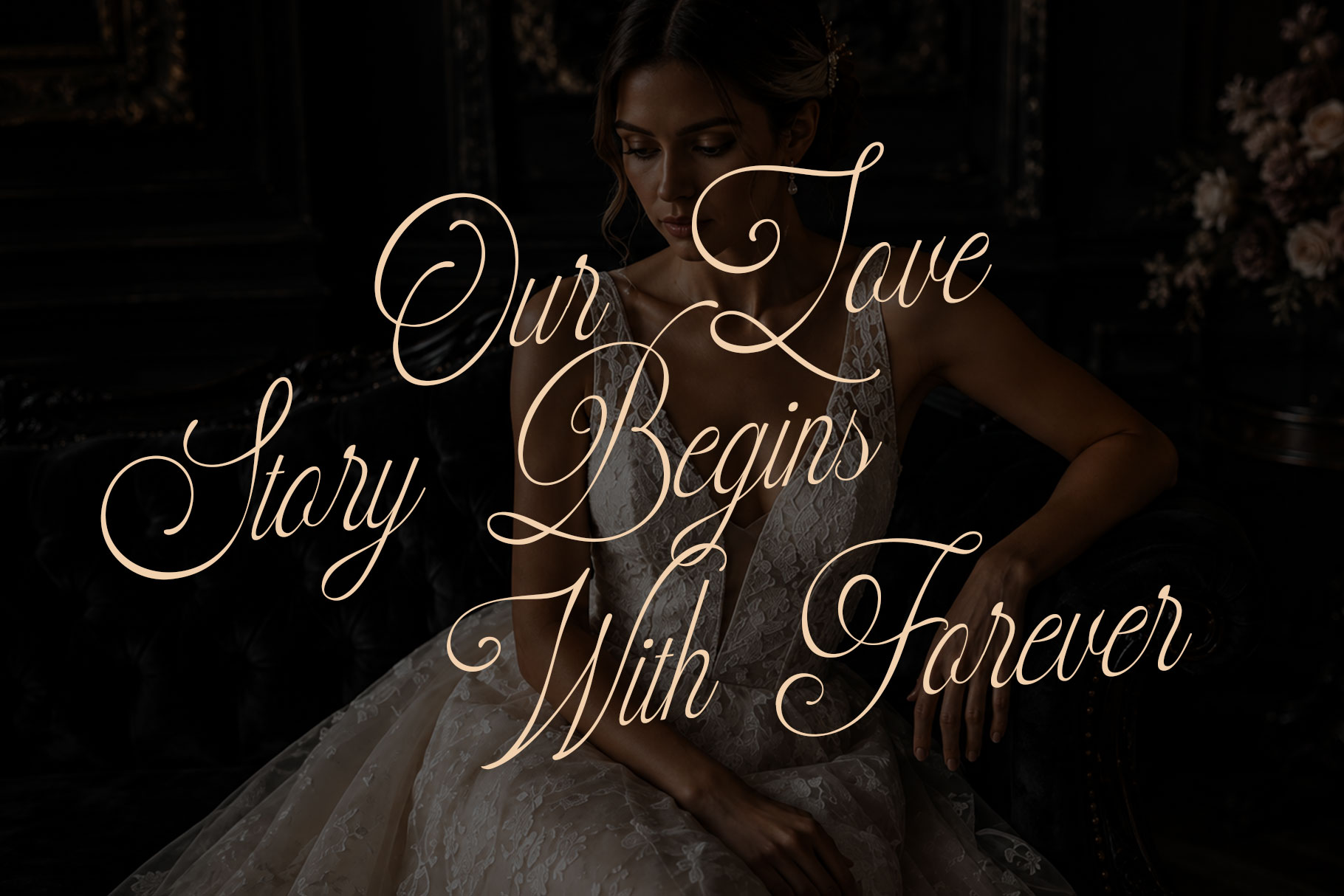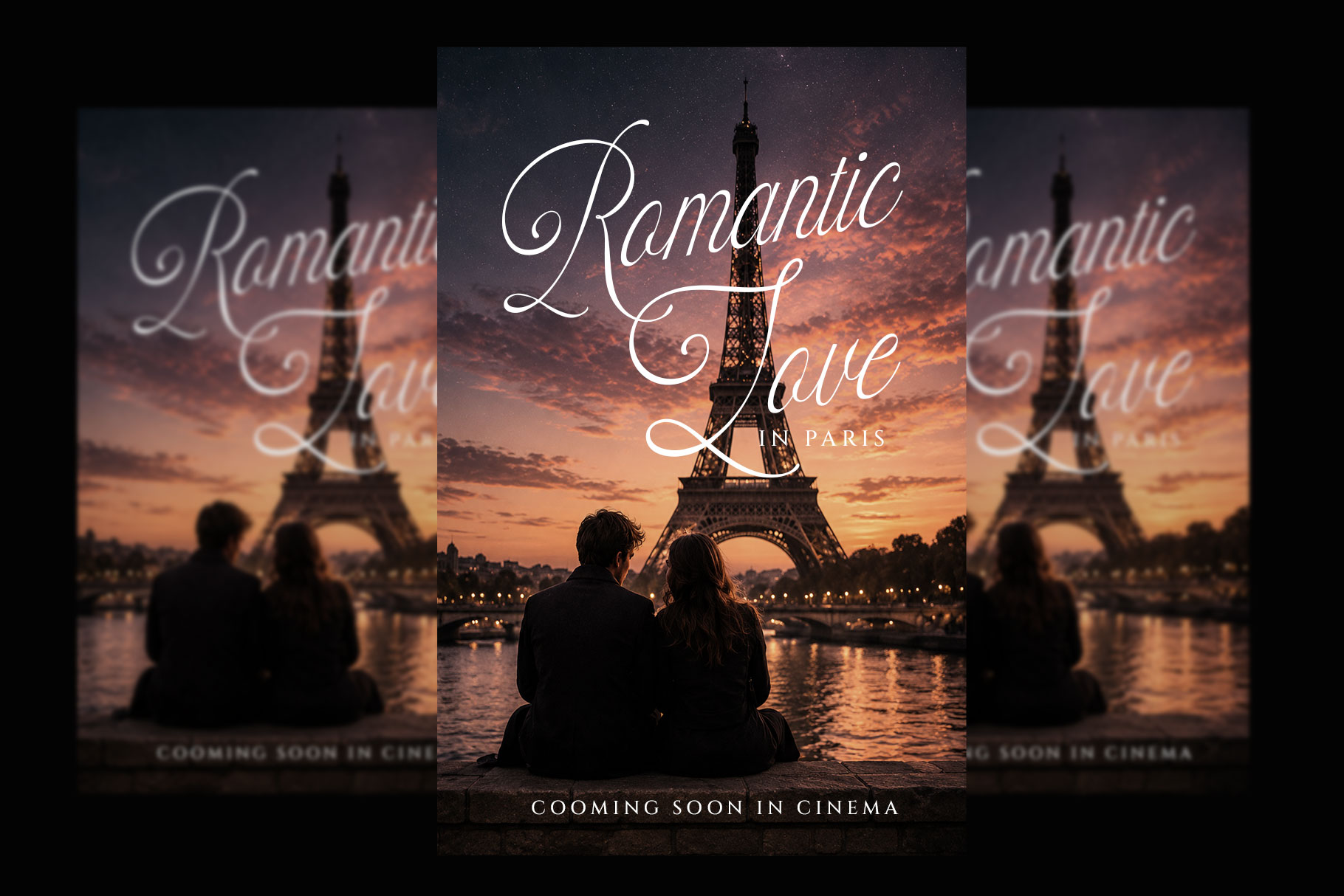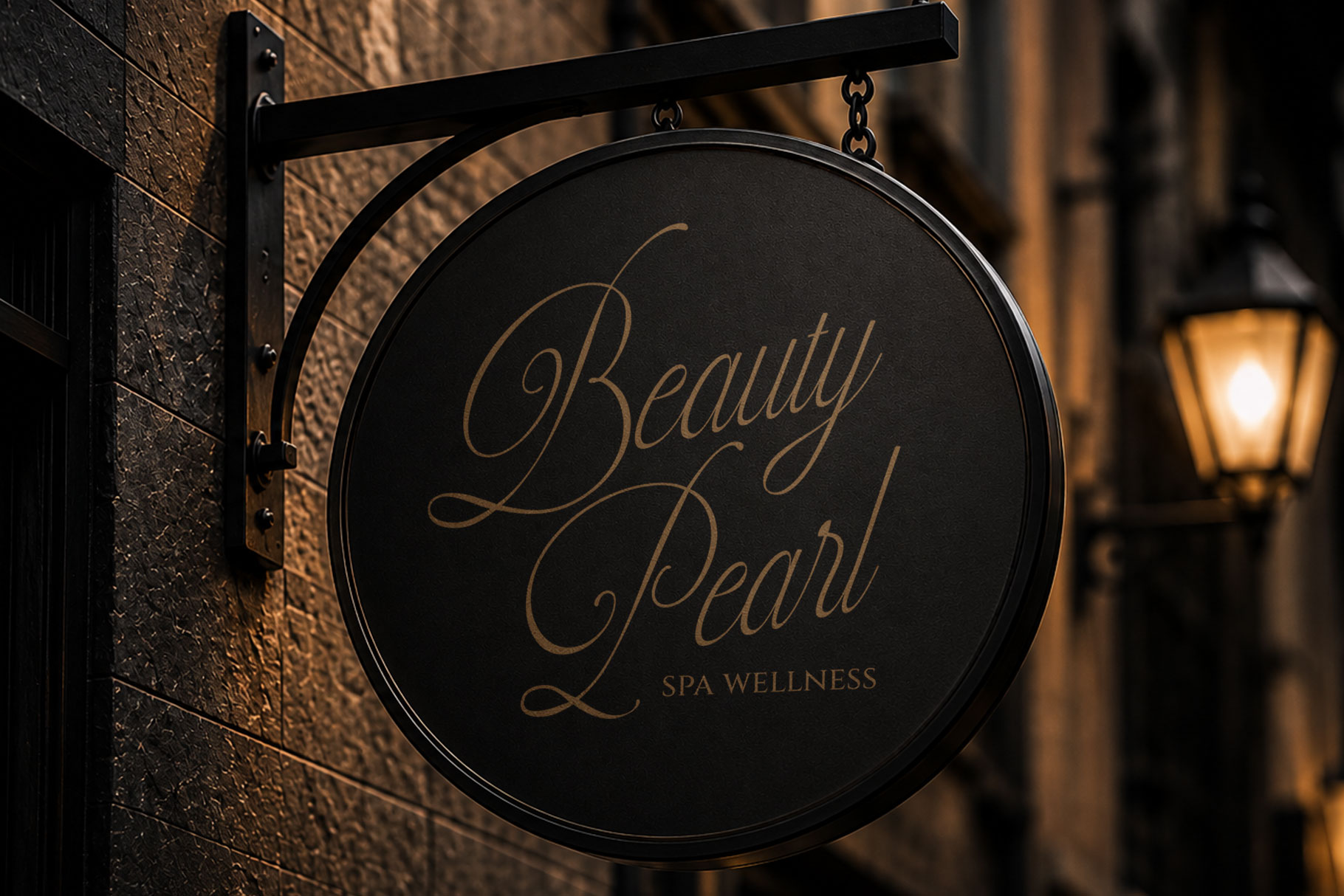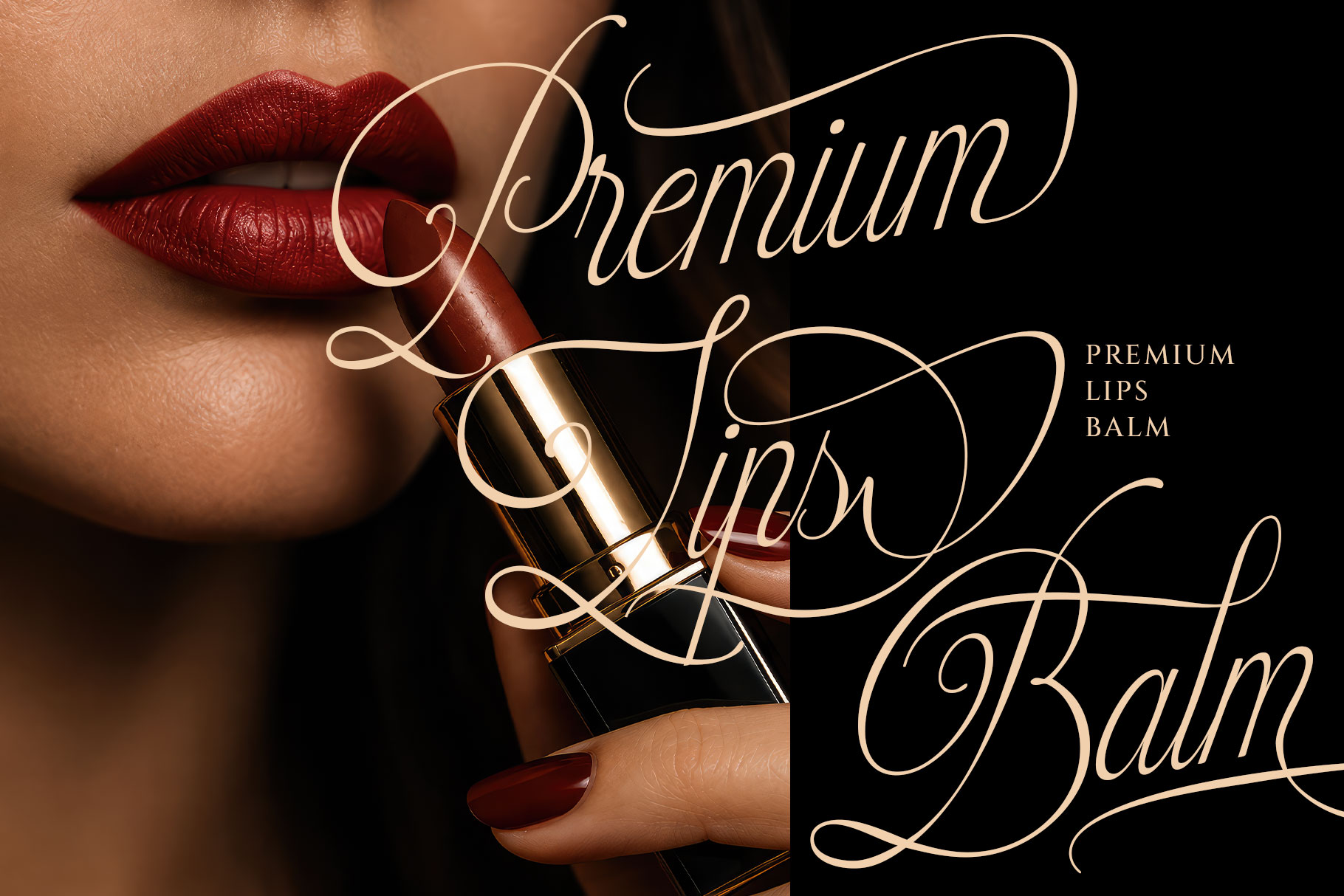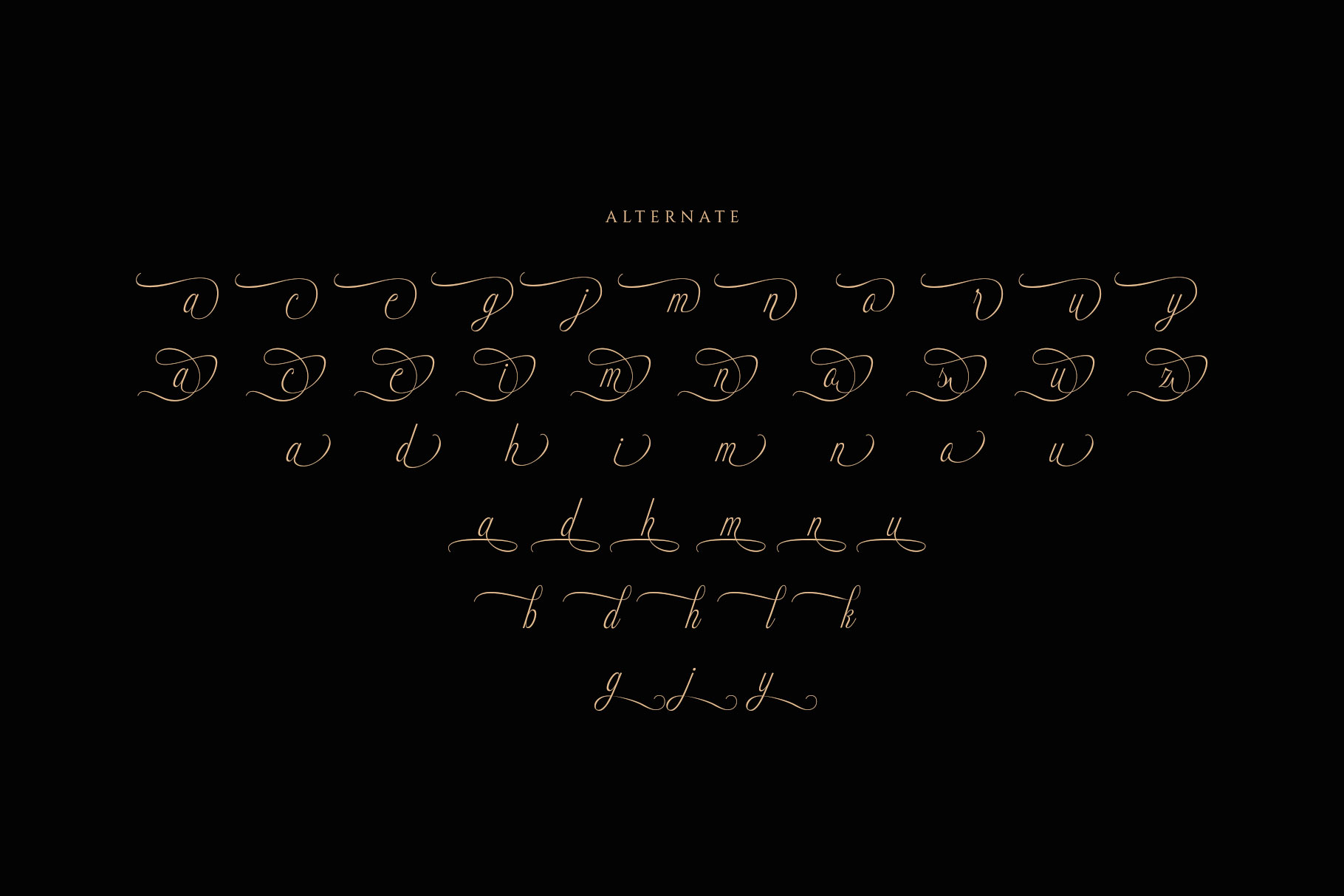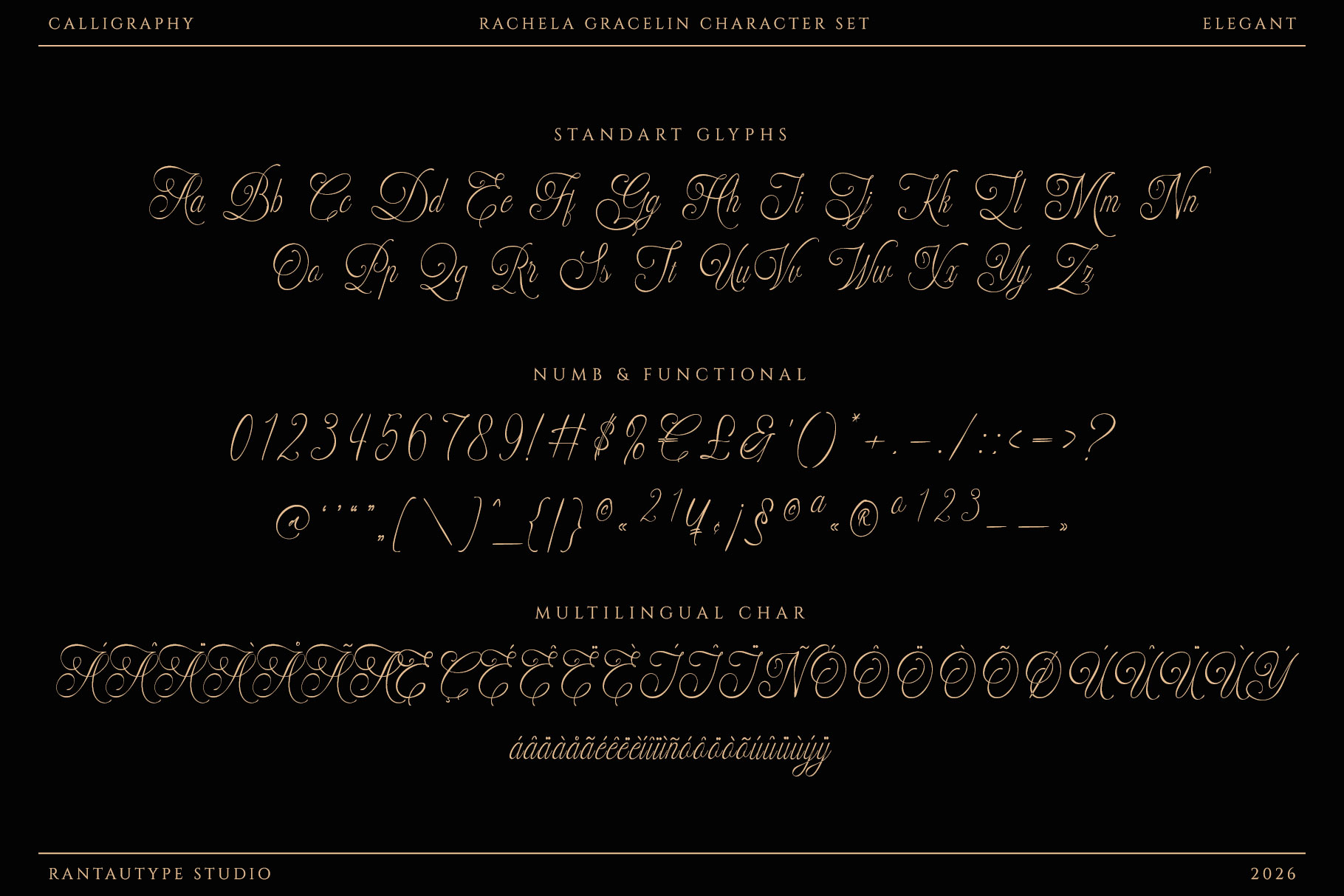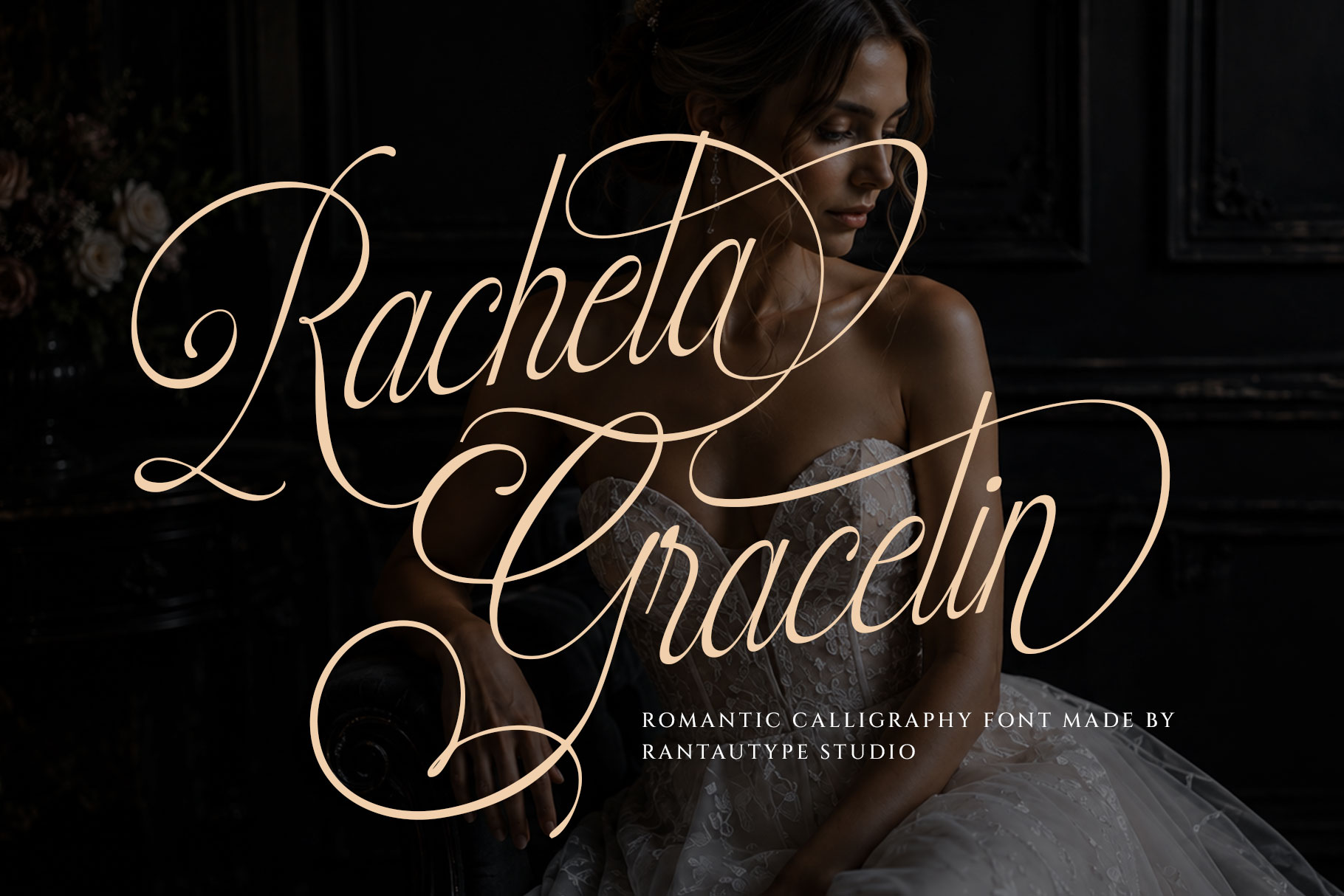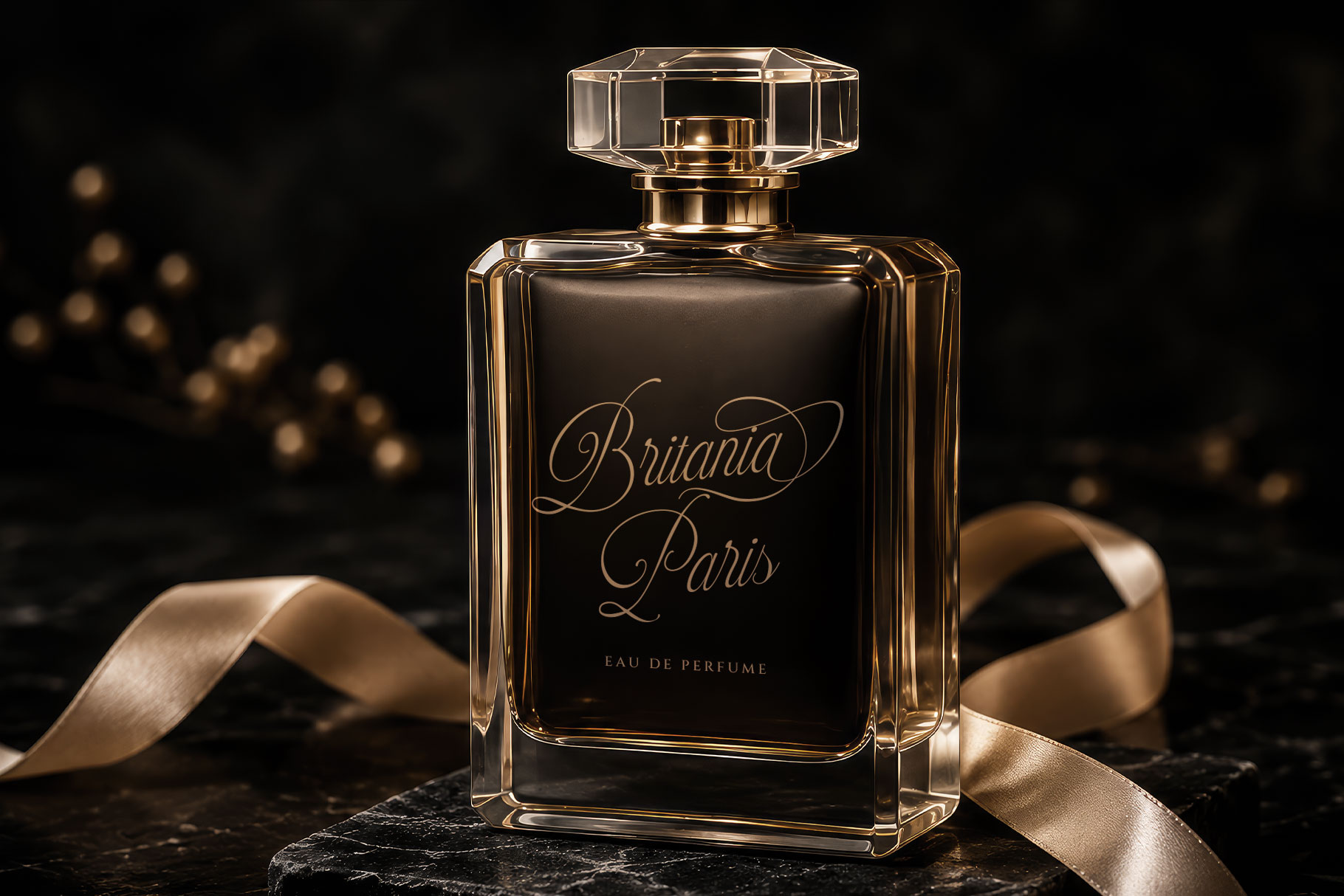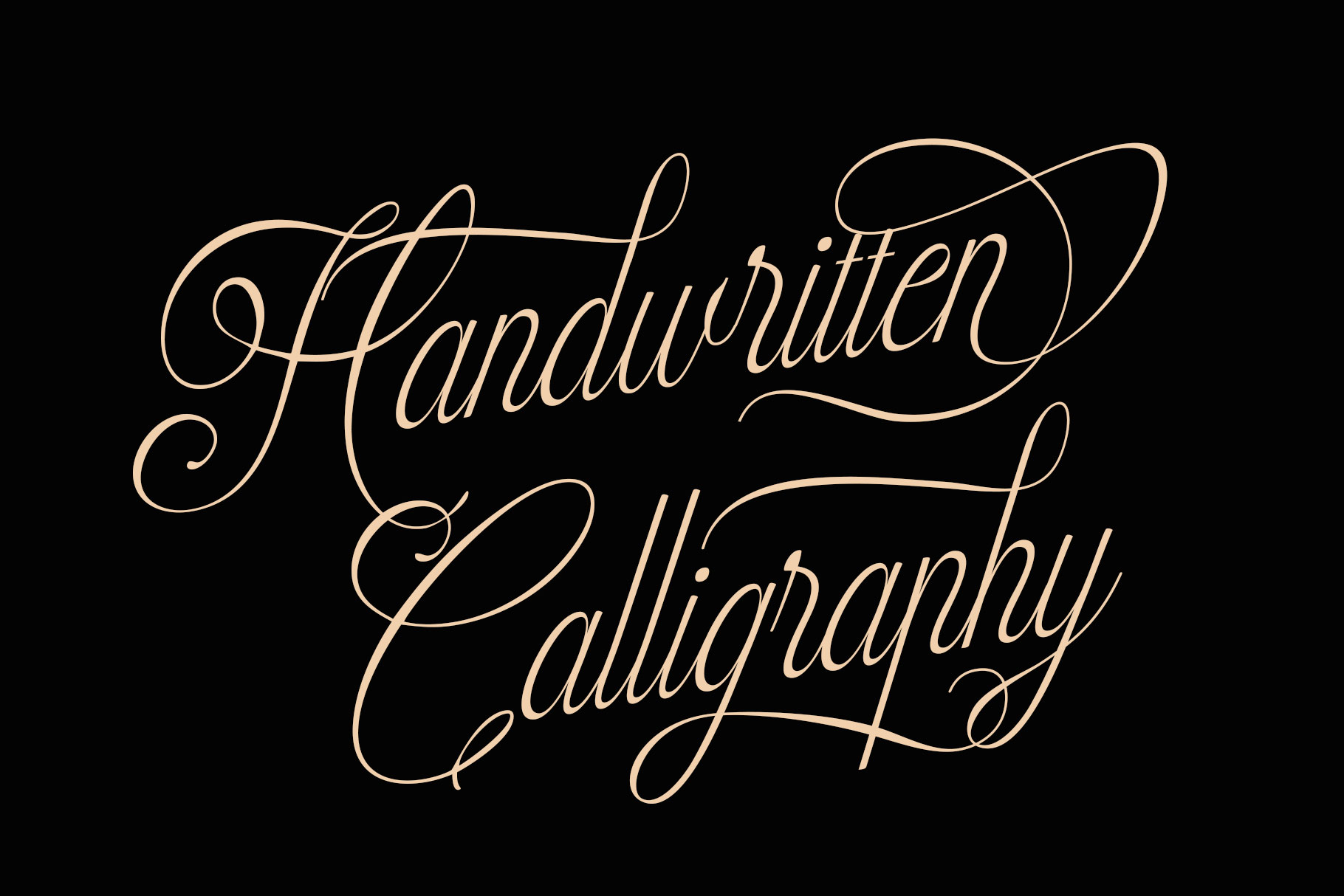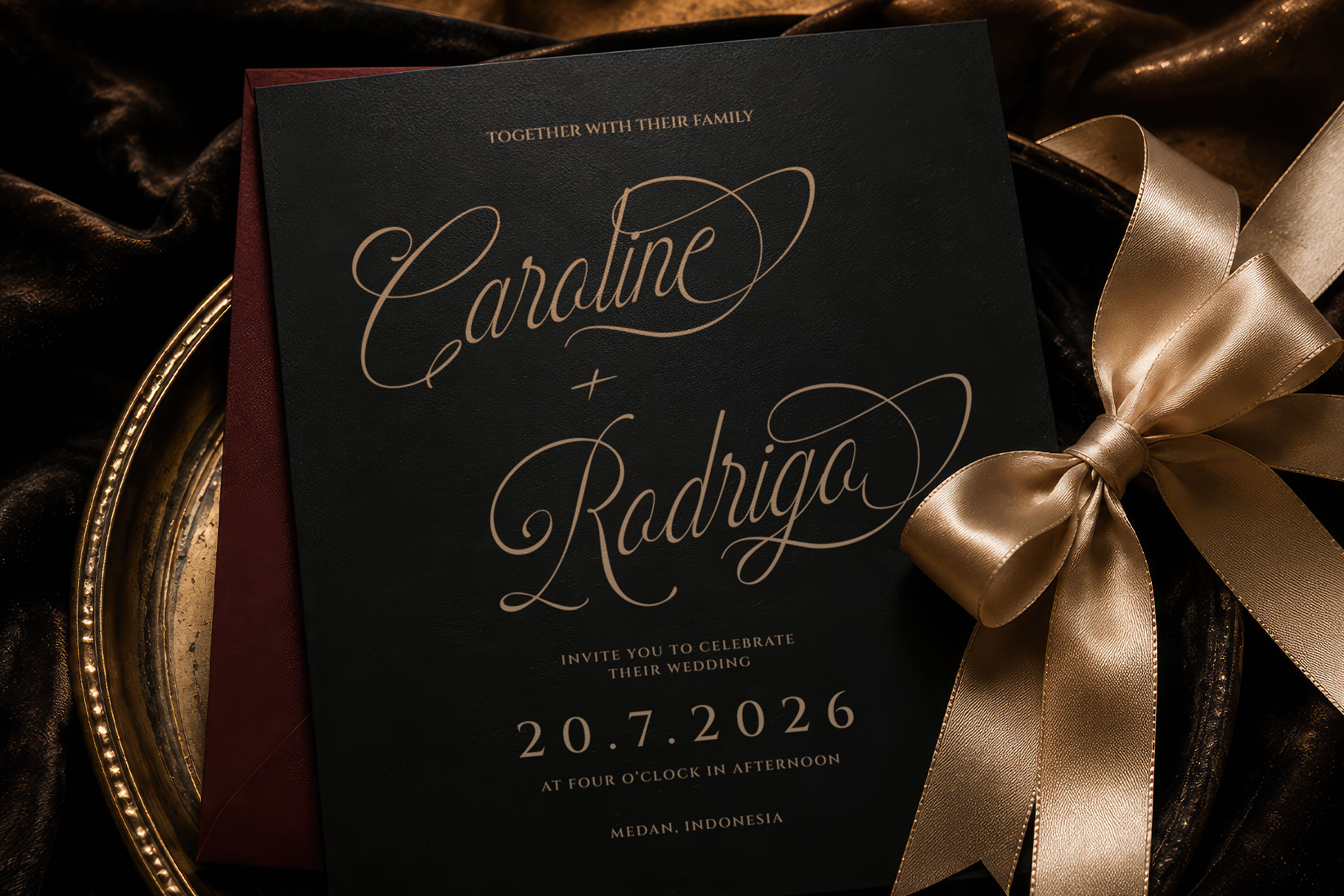
Rachela Gracelin is elegant calligraphic script font embodies romance, sophistication, and luxurious femininity through its graceful flowing strokes and dramatic flourishes.
Rachela Gracelin is a perfectly choice for any creative endeavor, creating, modern, lifestyle design such as logotype, title, cover, branding, invitations, wedding designs, display and magazine, social media posts, advertisements, printed quotes, product packaging, corporate brand, wedding invitations, product designs, labels, photography, watermarks, special events and any other project with elegant touch.
Rachela Gracelin Romantic Calligraphy Script Font